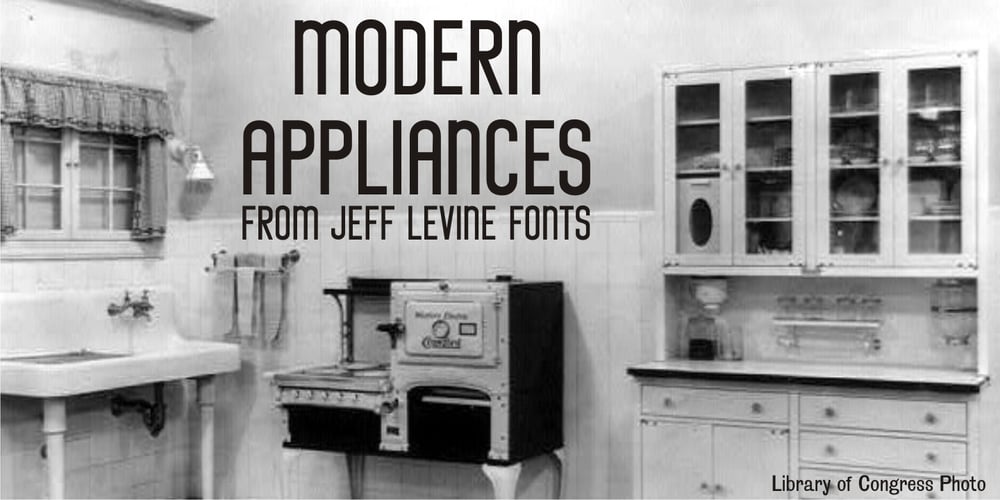
Modern Appliances JNL Font Family was designed by Jeff Levine and published by Jeff Levine. Modern Appliances JNL contains 1 styles and family package options. If there s a back-story about the design inspiration for Modern Appliances JNL, it’s lost to time. An unfinished design for quite a while, this clean sans with an Art Deco flair was recently completed, and the design quality should speak more for its appeal than any promotional blurb.